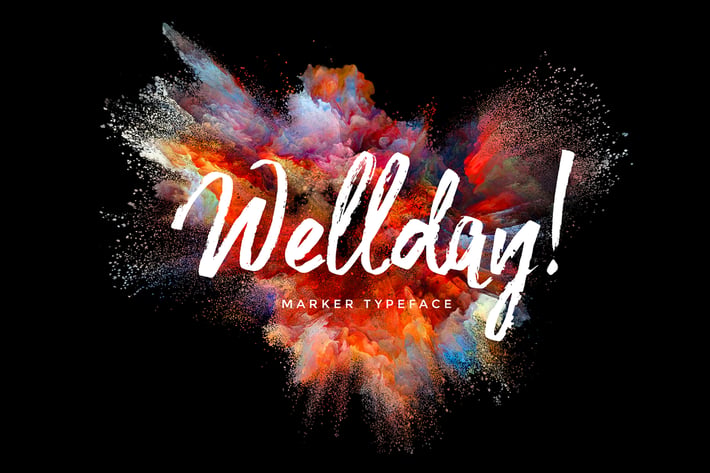
Wellday Brush Font
Wellday is a handlettering typeface with a brush style, itβs perfect for latterhead, apparel design, headline, logotype, poster, card, and etc.